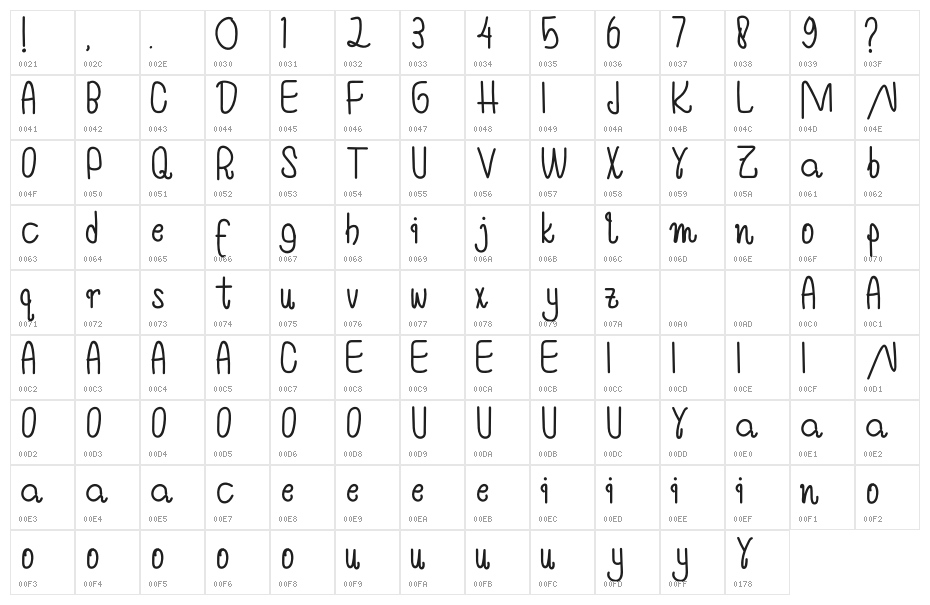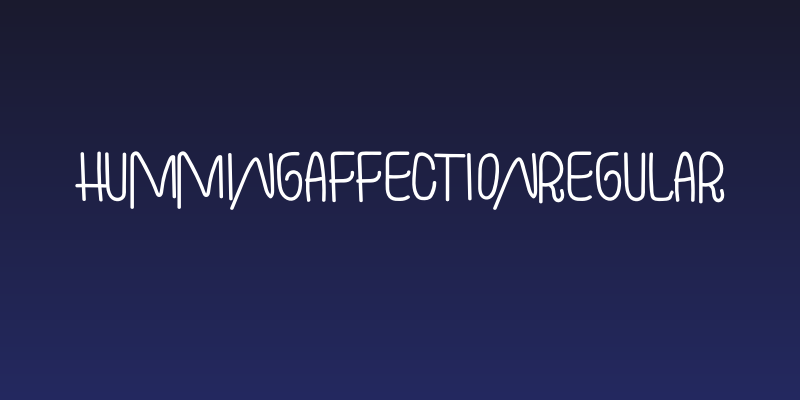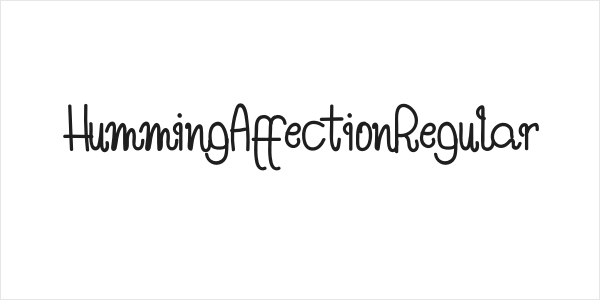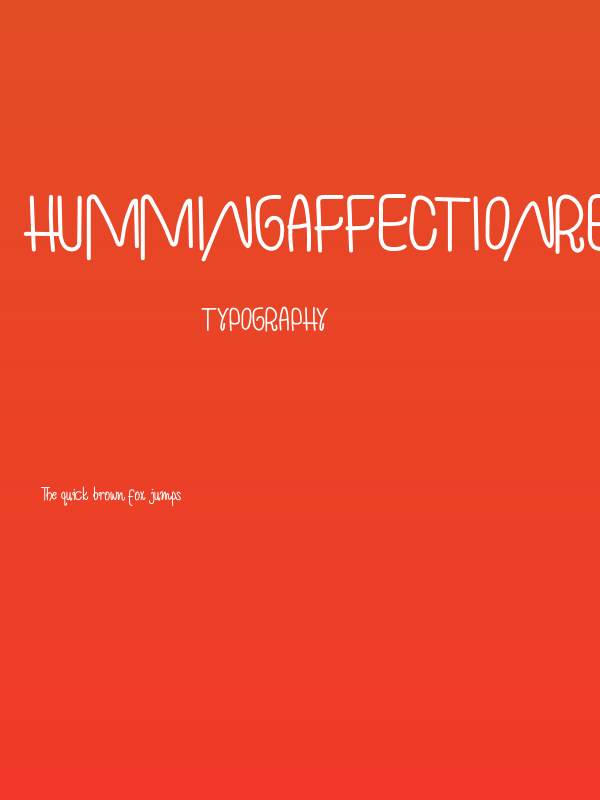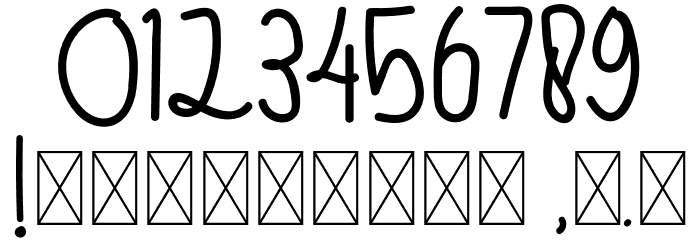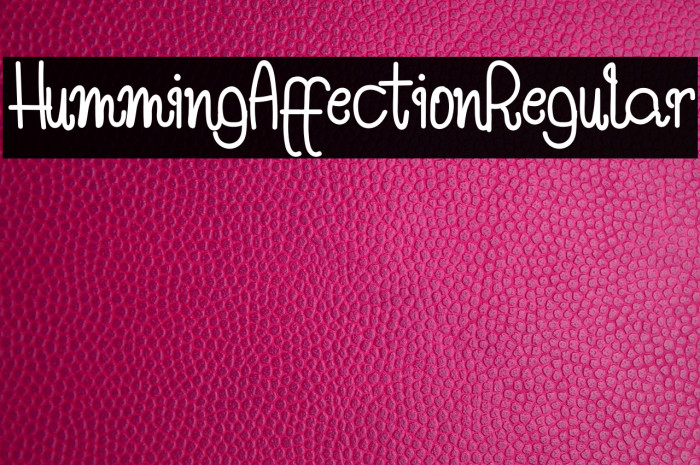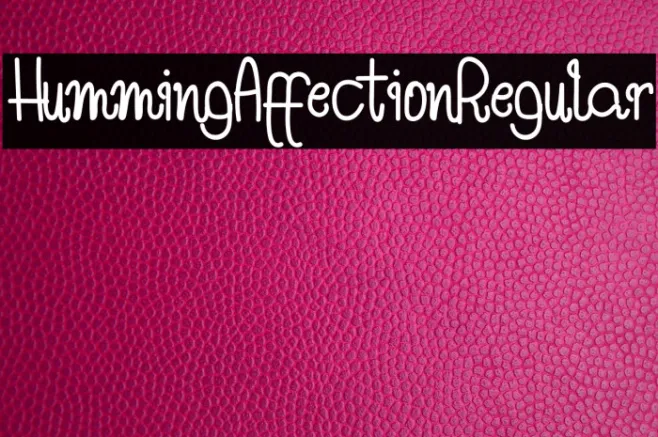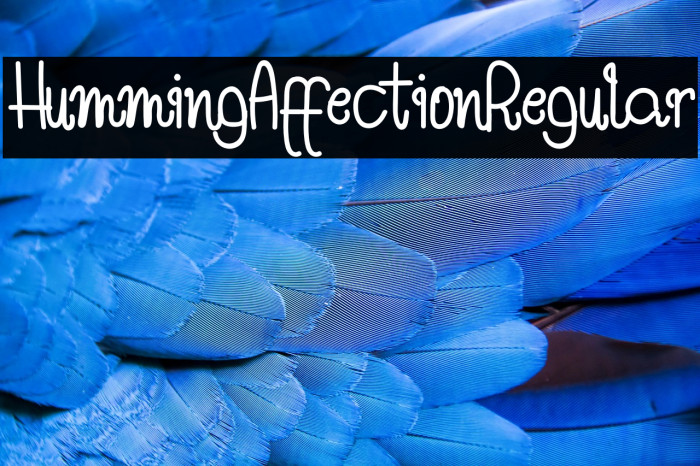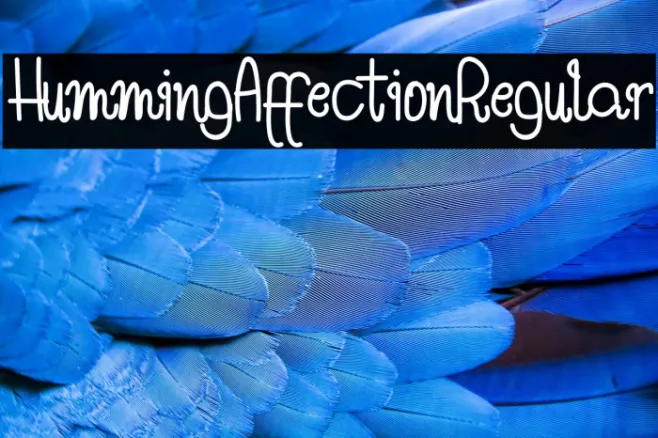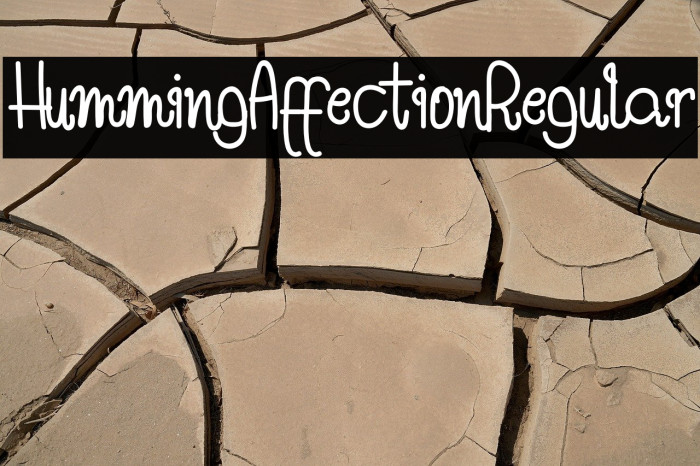
HummingAffectionRegular Font
HummingAffectionRegular Description
This font features a playful and whimsical style, characterized by its handwritten appearance. The letters are slightly irregular, adding a personal and informal touch. The uppercase letters are tall and narrow, while the lowercase letters have a more rounded and flowing form. The numbers follow the same playful style, making them easy to read yet visually interesting. The special characters are consistent with the overall design, maintaining the font's unique charm. This font is perfect for projects that require a friendly and approachable feel.
| Font Family | Humming Affection |
| Proposed Projects | Ideal for greeting cards, children's books, playful branding, and social media graphics. |